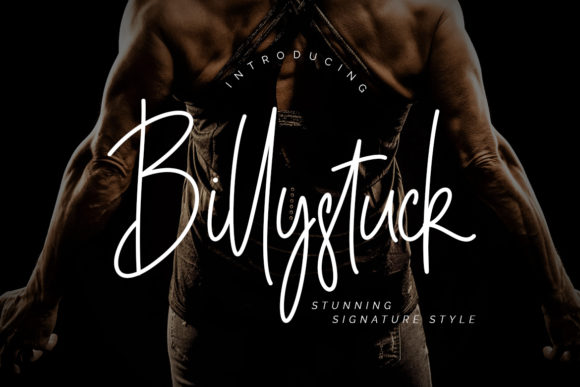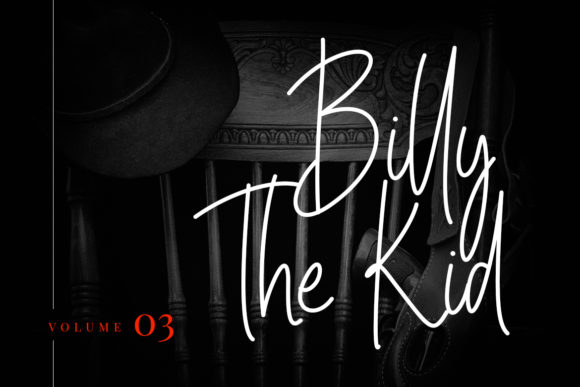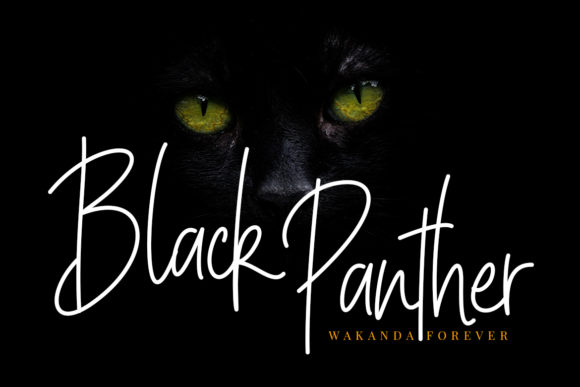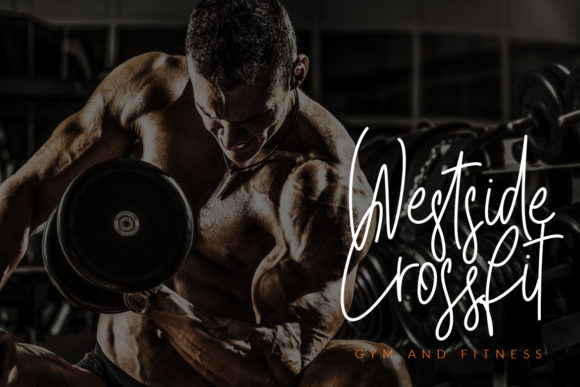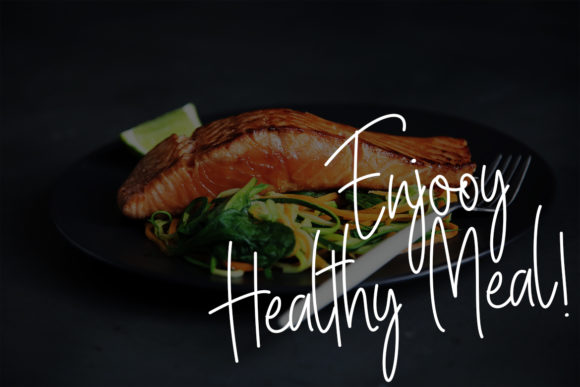
Billystuck Font
About Billystuck Font
The Billystuck is a stylish and stunning signature typeface. It’s perfect for adding a personal touch to your branding projects, logos, wedding designs, social media posts, advertisements, product packaging, product designs, labels, photography, watermarks, invitations, stationery and much more!